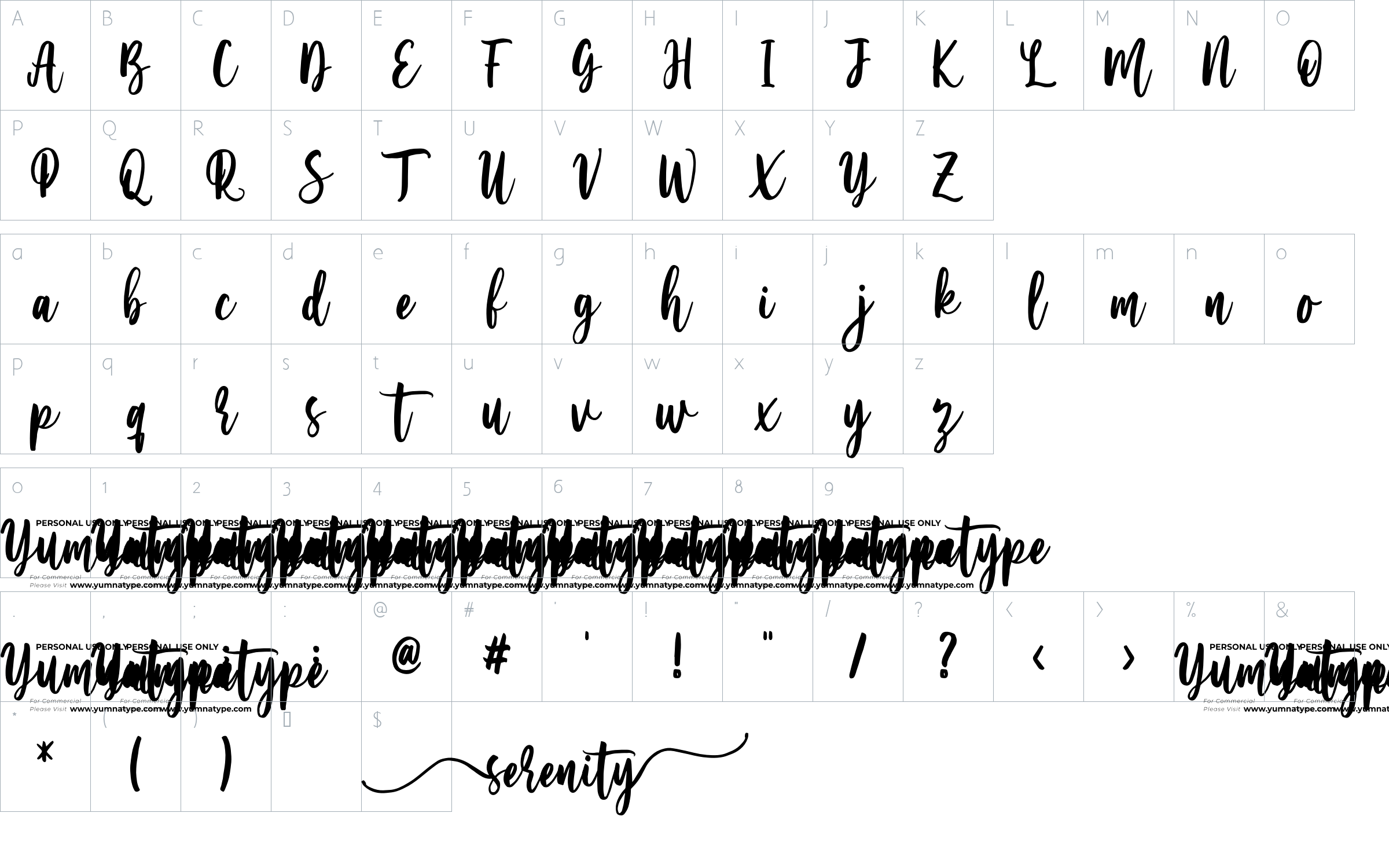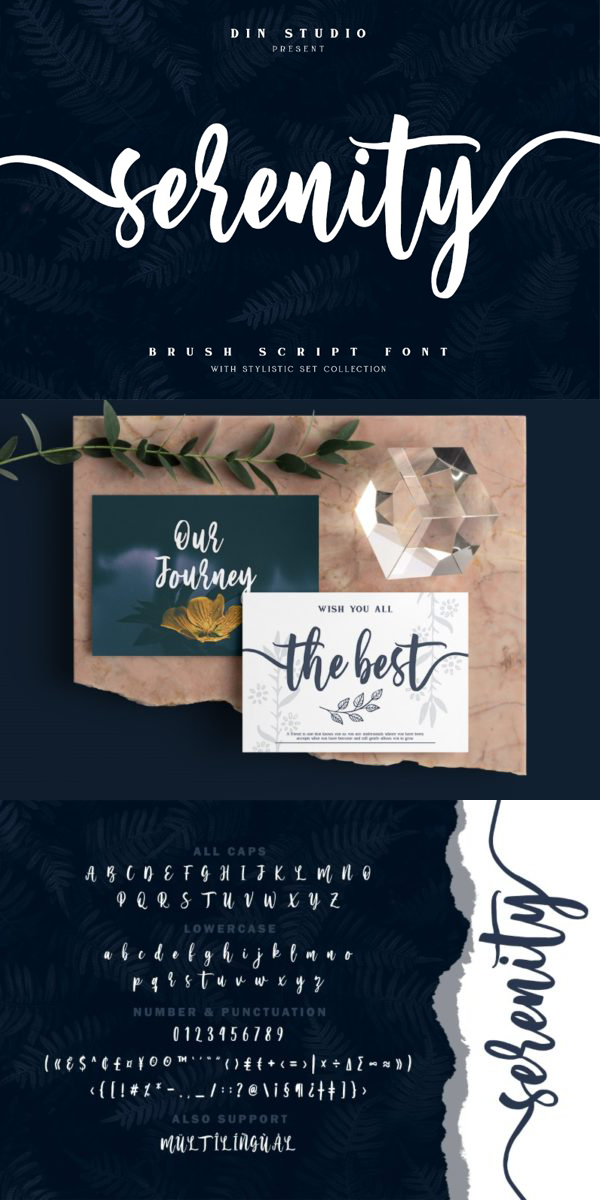
Serenity Font
About Serenity
Introducing Serenity Script- handwritten font. Serenity is a beautiful brush font. Made with natural brush. The texture from the brush font will make your design more beautiful and powerful. This font is suitable for any design like branding, quotes, t-shirt printing and etc.
-104 Beautiful Stylistic
-Numerals and Punctuations (OpenType Standard)